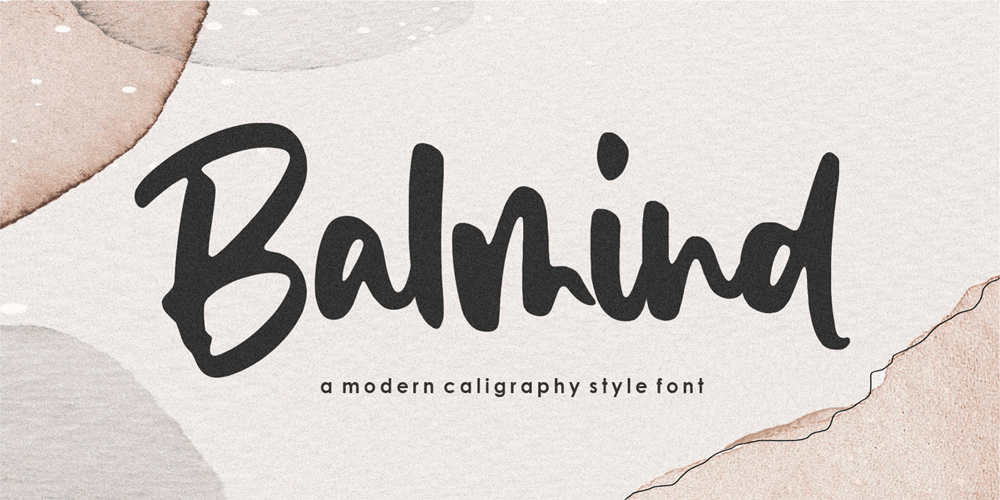
Balmind Font Family was designed by Annas Alam Yahya and published by Letteralle. Balmind contains 1 styles and family package options. Introducing! Balmind Font! a casual aa cursive font that is natural and beautiful in every curve. The style of this font imitates wet ink strokes and creates a casual and relaxed feel. Balmind is very suitable to fill your design needs such as, branding, social media, merch, ads, book title, packaging, etc. Enjoy the Font,Thank You!